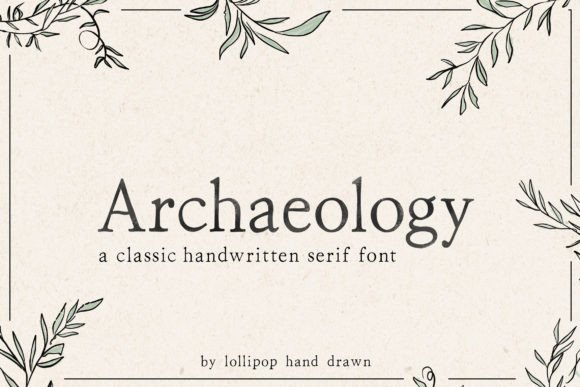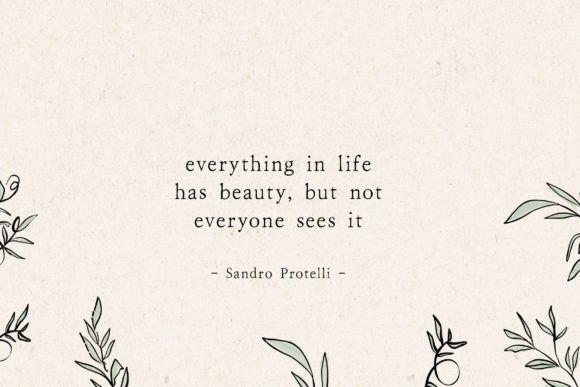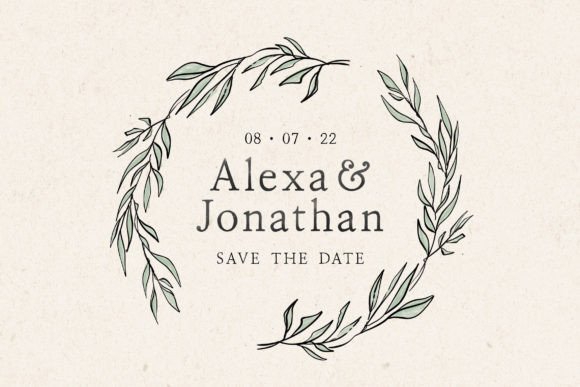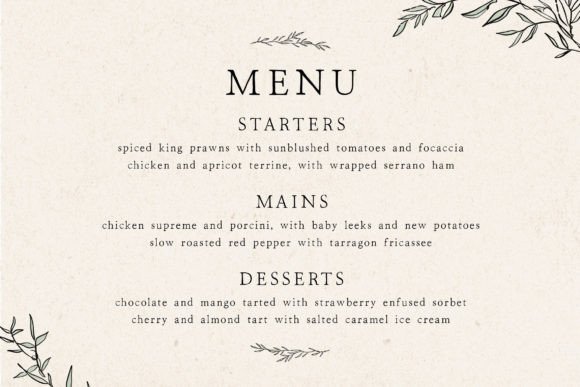
Archaeology Font: Elegant Serif Typography for DIY & Branding
About the Archaeology Font
Introducing the Archaeology Font, a beautifully crafted typeface designed to elevate your creative projects. Archaeology is an authentic serif font that can help you add a personal note to any design! Try this beautiful typeface on letters, name tags, business cards, invitations, or anything exquisite.
Archaeology’s strong serifs and classic forms make it ideal for headlines, logos, and short-form text in branding materials and invitations. It lends an air of sophistication and trustworthiness, perfect for projects emphasizing heritage or tradition. Avoid using it for body text or lengthy paragraphs; its weight can become visually tiring at smaller sizes.
This font’s personality is authoritative yet refined. It pairs well with clean sans-serif fonts like Helvetica or Open Sans for a balanced contrast, or with a script font like Great Vibes for a more luxurious feel in applications like wedding invitations. A geometric sans-serif like Futura could also create a modern, yet timeless combination.
For a more informal yet still sophisticated application, consider pairing it with a casual, slightly rounded sans-serif. Remember to maintain sufficient contrast in size and weight between the fonts for optimal readability.